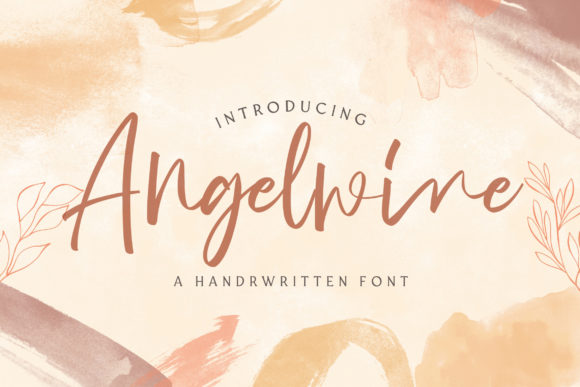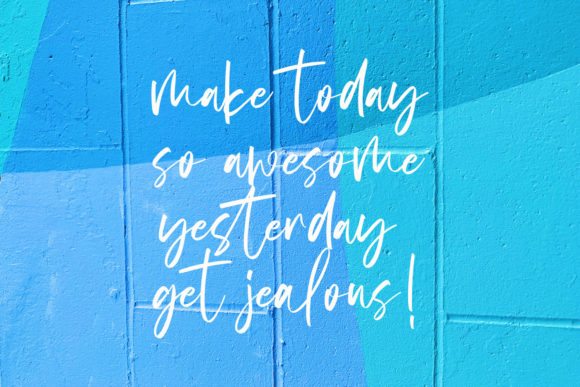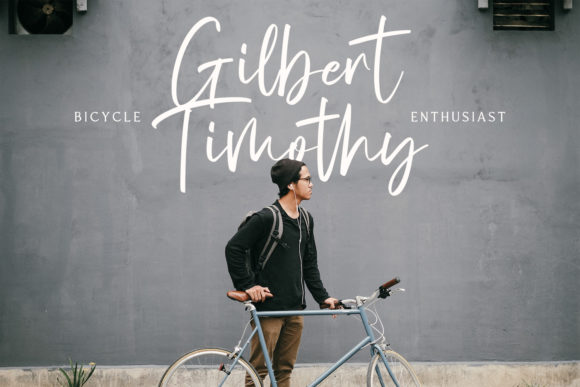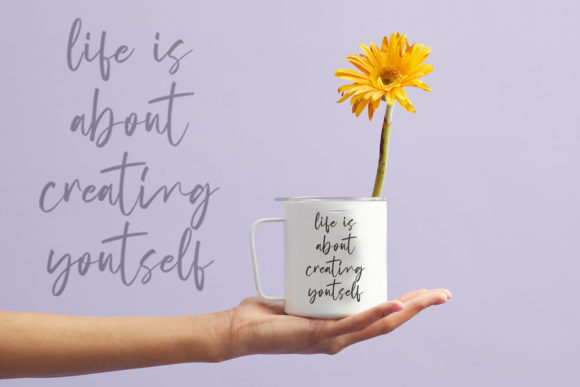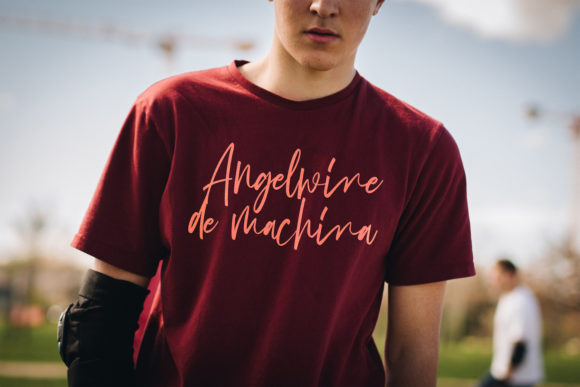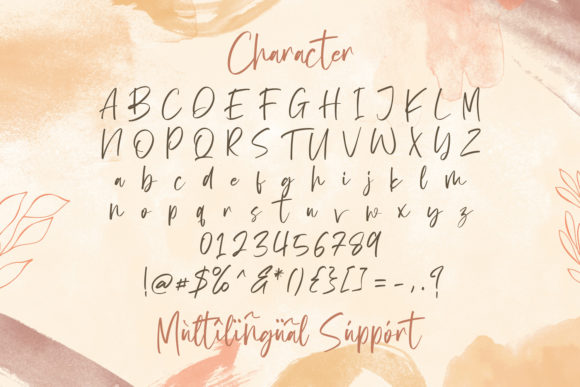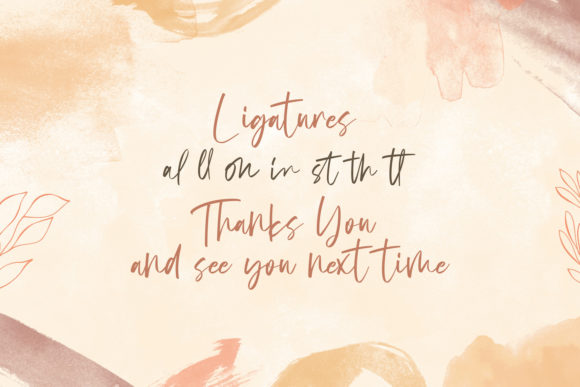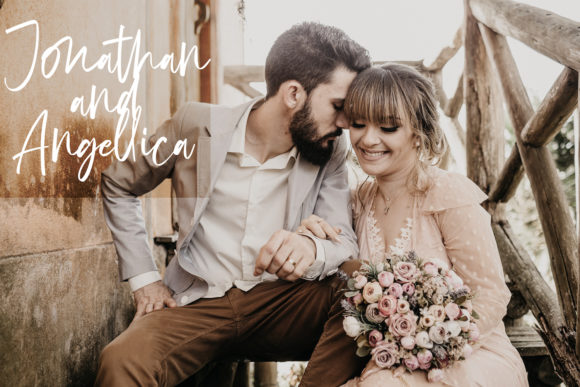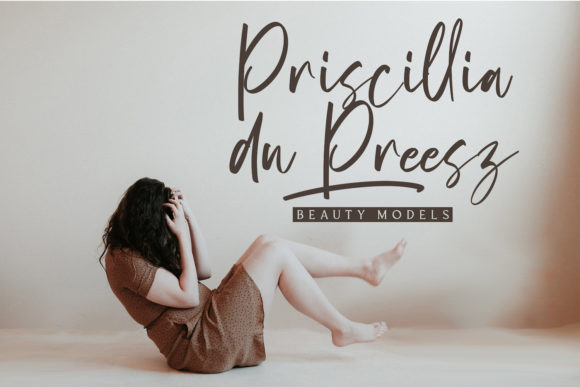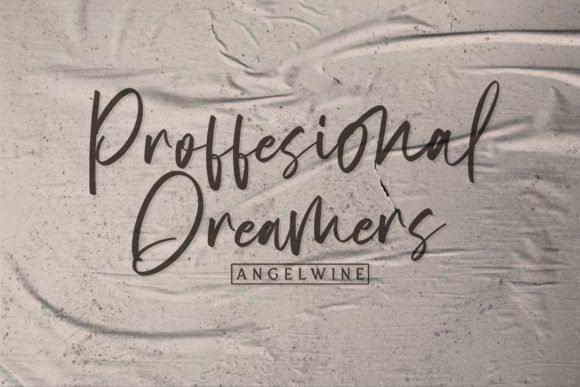
Angelwine Font
About Angelwine Font
Angelwine is a handwritten script with an authentic feel. This typeface is perfect for fashion brand, wedding invitations, business cards, logos, signature, and any other project that requires a personalized look!